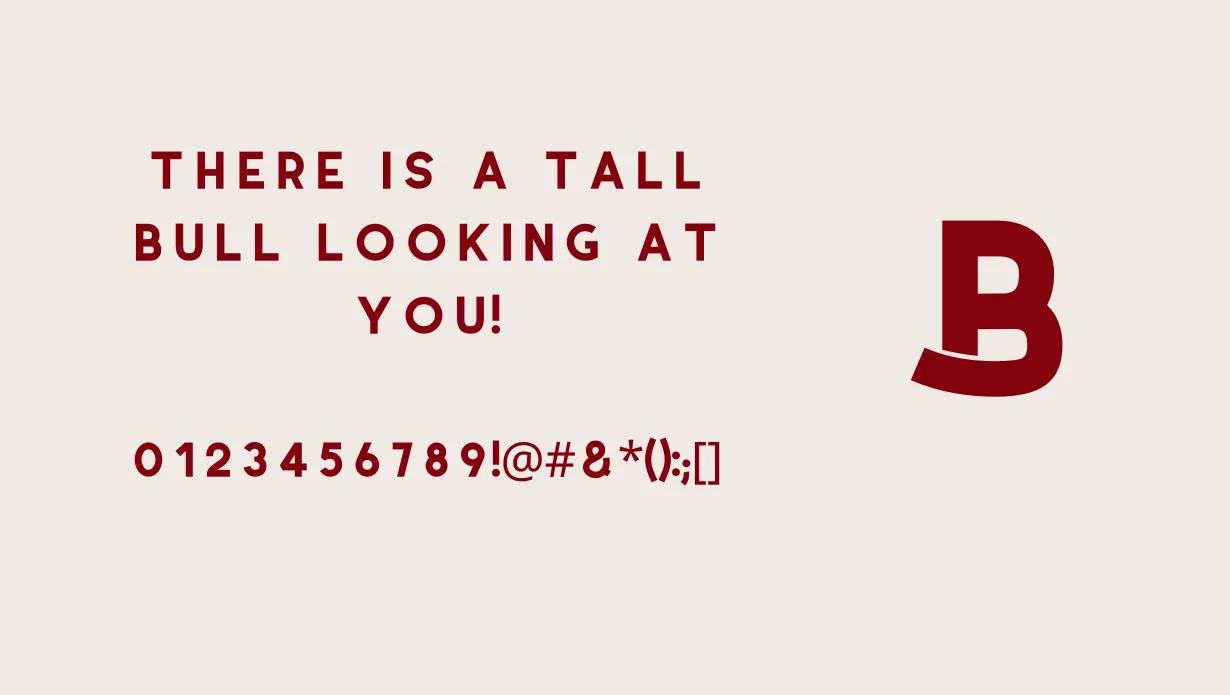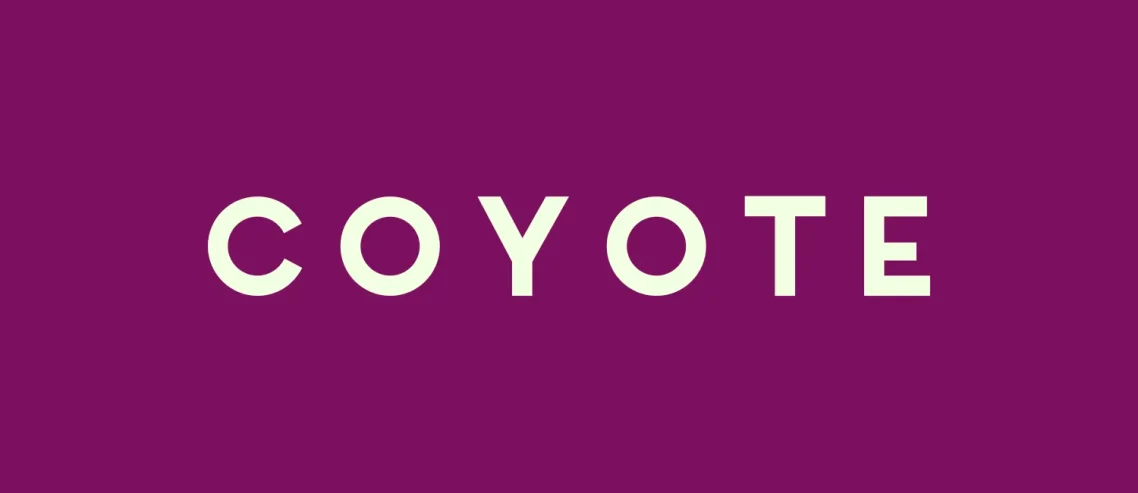
Coyote Font Family
Coyote Font Family Loved Ones is a state-of-the-art show font with a minimalist design. It’s superb for T-shirt designs, internet site headers, and social media posts.
It is similar to grota rounded a fancy retro type with sharp edges to emphasize the calm character of the font.
Style Of Coyote Font Family